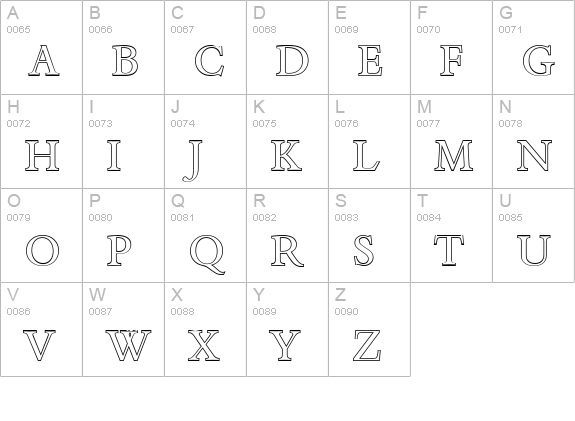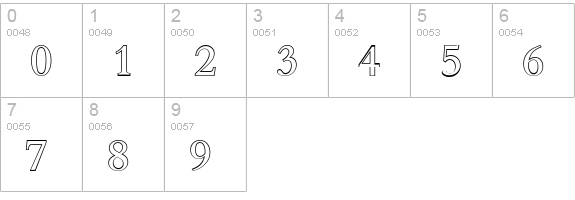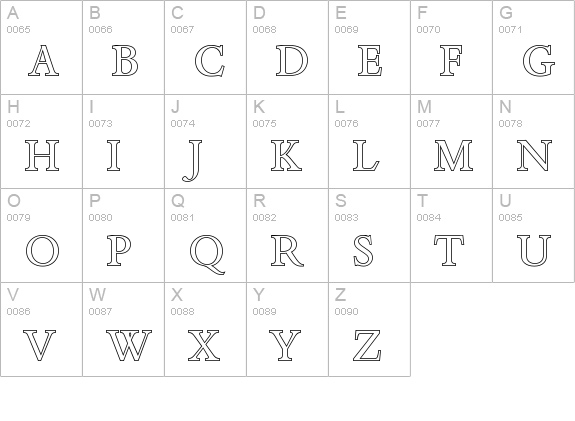
BambergOutline-Regular Font Details
BambergOutline-Regular is the standard, neutral variant in the BambergOutline typeface family \xE2\x80\x94 well suited to general body text, paragraphs, and standard typographic work.
BambergOutline-Regular font is a modern and stylish typeface that exudes elegance and sophistication. Its sleek lines and sharp edges make it perfect for a variety of design projects, from branding to editorial design. The clarity and readability of this font make it a versatile choice for both print and digital mediums. What's even better is that BambergOutline-Regular font is available for free download at FontsMarket.com. This means you can easily access this stunning font and use it in your projects without any cost. Don't miss out on the opportunity to enhance your designs with this beautiful typeface that will surely make a statement.